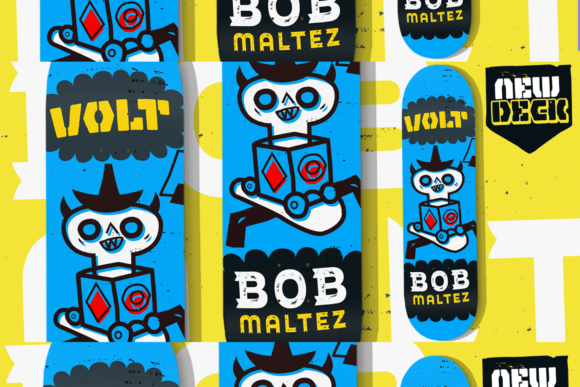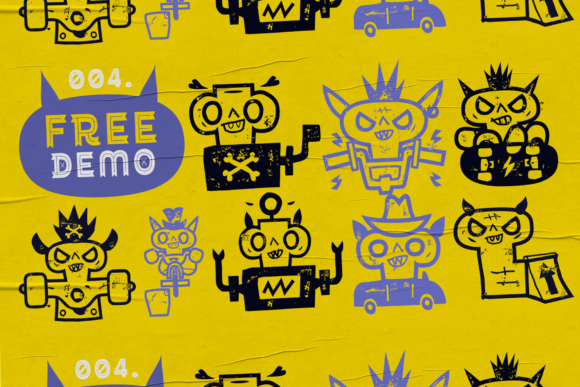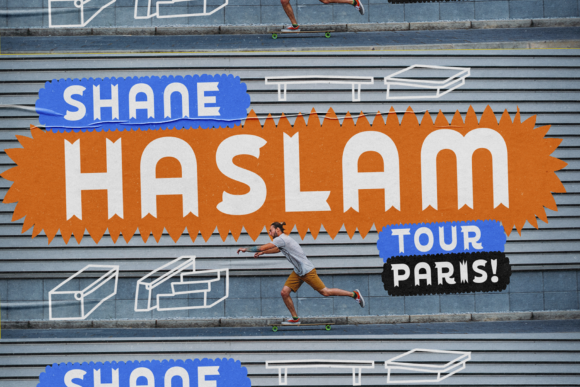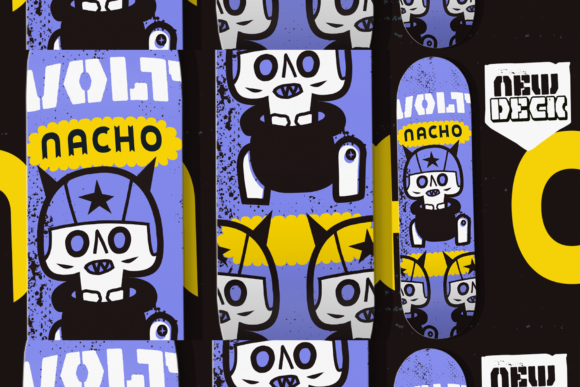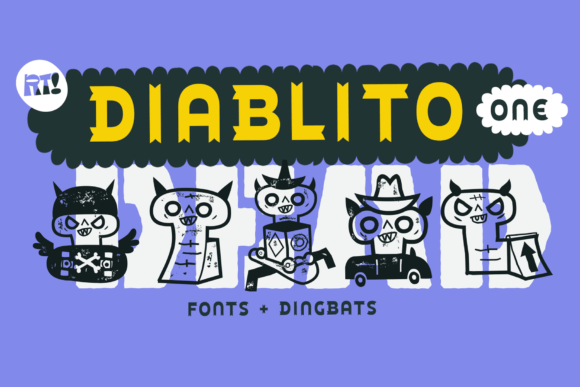
Introducing Diablito One Font: The Ultimate Display Font for Creative Projects
Are you tired of using the same old fonts for your creative projects? Look no further than Diablito One Font, an entertaining and cool-looking display font that’s sure to elevate your designs. With its unique pointed endings, inline features, and various dingbats, Diablito One is an incredible asset to any font library.
What Makes Diablito One Font Stand Out?
Diablito One Font is a display font that packs a punch. Its distinctive pointed endings give it a bold and edgy look, making it perfect for designs that require a bit of attitude. The font also features inline details that add a touch of sophistication and elegance. Whether you’re working on a logo, poster, or social media graphic, Diablito One Font is sure to make your design stand out.
Key Features of Diablito One Font
- Pointed Endings: Diablito One Font features pointed endings that give it a unique and bold look.
- Inline Details: The font includes inline details that add a touch of sophistication and elegance to your designs.
- Various Dingbats: Diablito One Font comes with a range of dingbats that can be used to add extra flair to your designs.
Why Designers and Crafters Love Diablito One Font
Diablito One Font is a versatile font that’s perfect for a wide range of creative projects. Here are just a few reasons why designers and crafters love this font:
- Perfect for Display Text: Diablito One Font is designed specifically for display text, making it perfect for headlines, titles, and other large-format text.
- Great for Logos and Branding: The font’s unique look and feel make it a great choice for logos and branding projects.
- Easily Customizable: Diablito One Font is easy to customize, allowing you to adjust the font size, color, and style to suit your design needs.
How to Use Diablito One Font in Your Designs
Diablito One Font is an incredible asset to any font library. Its unique look and feel make it perfect for a wide range of creative projects, from logos and branding to social media graphics and posters. With its pointed endings, inline details, and various dingbats, Diablito One Font is sure to elevate your designs and take them to the next level.